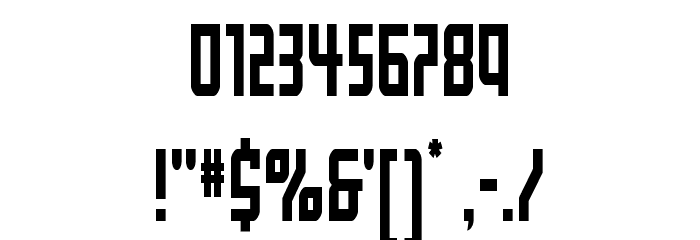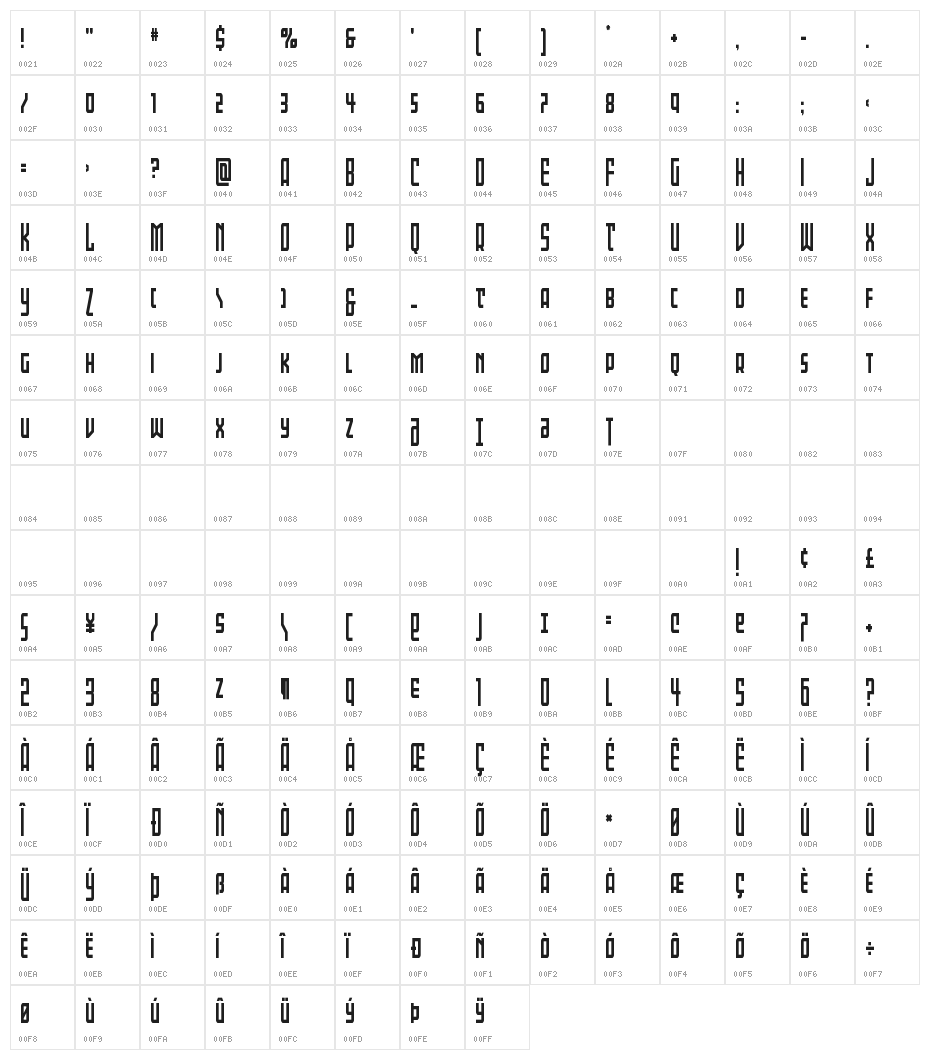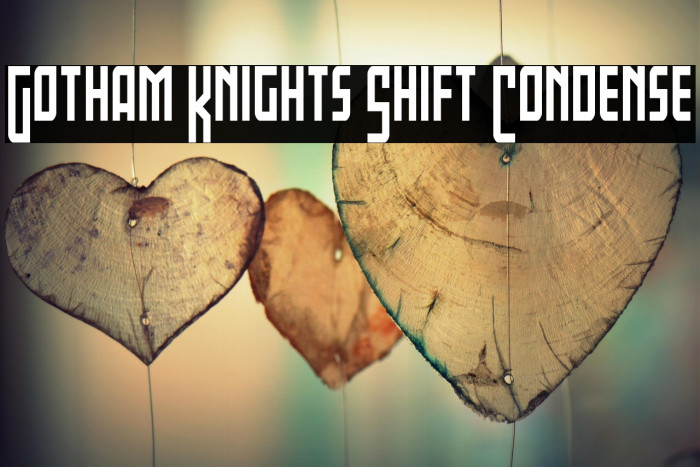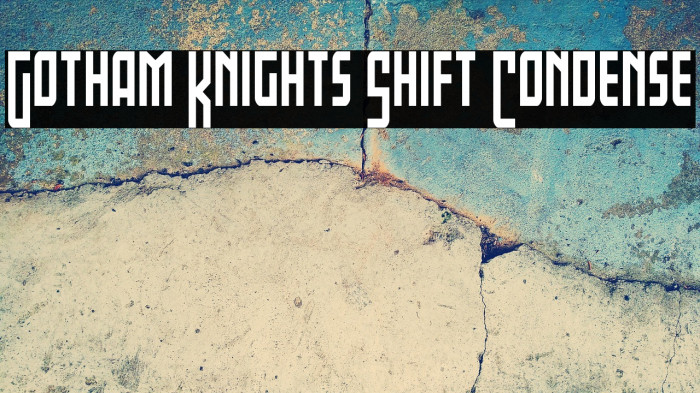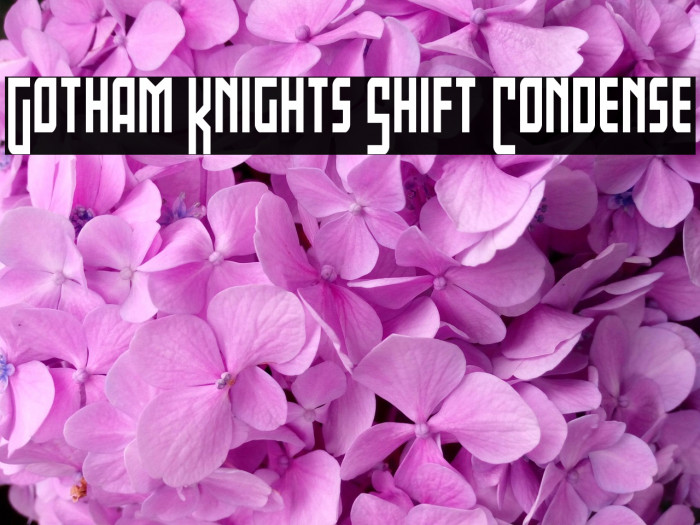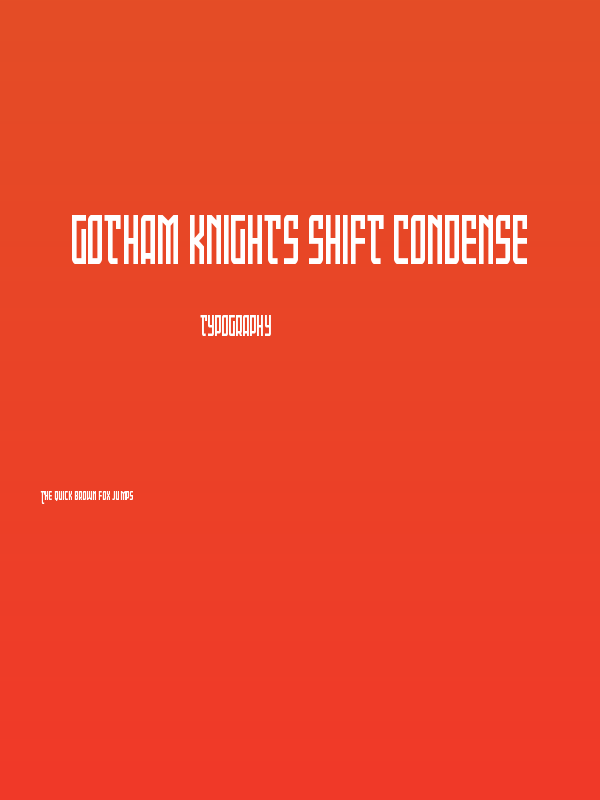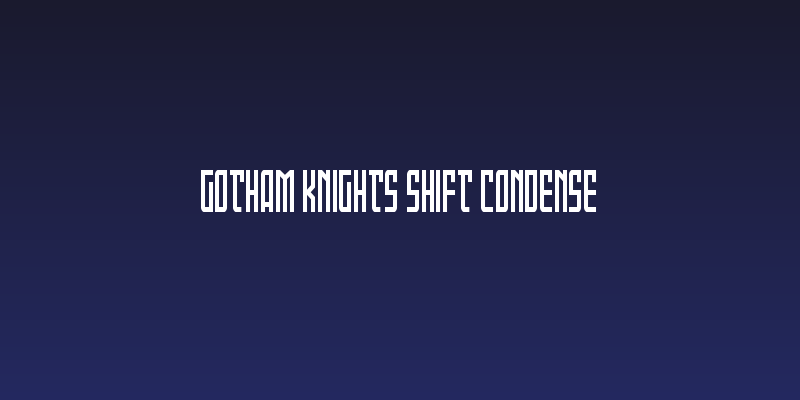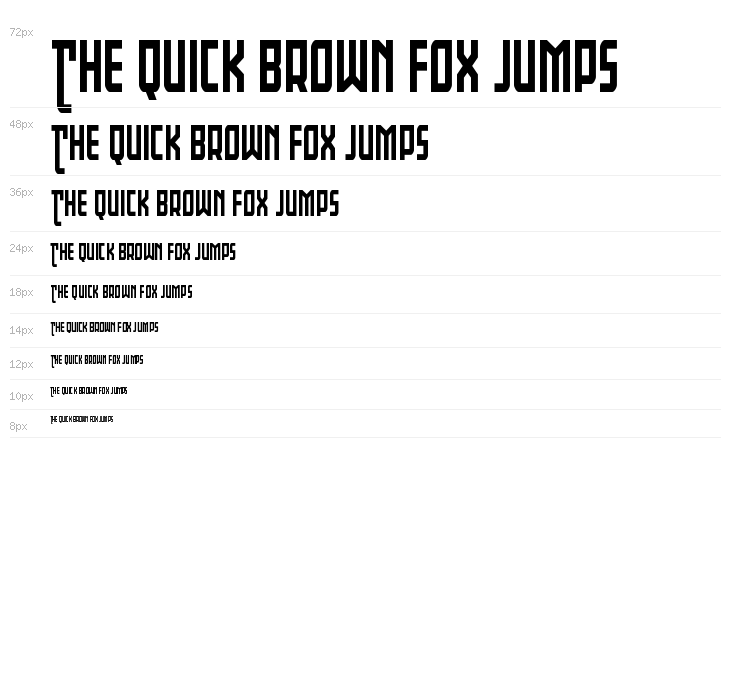
Gotham Knights Shift Condense Font
Gotham Knights Shift Condense Description
This font features a bold, geometric design with condensed letterforms that emphasize verticality and strength. The characters are constructed with clean, straight lines and sharp angles, giving it a modern and assertive appearance. The uppercase letters are particularly striking, with a uniform height and width that create a cohesive and structured look. The numerals and special characters maintain this geometric style, ensuring consistency across all glyphs. The overall design is both futuristic and industrial, making it suitable for projects that require a strong visual impact.
Proposed ProjectsIdeal for branding, posters, video game titles, and any project needing a strong, modern aesthetic.